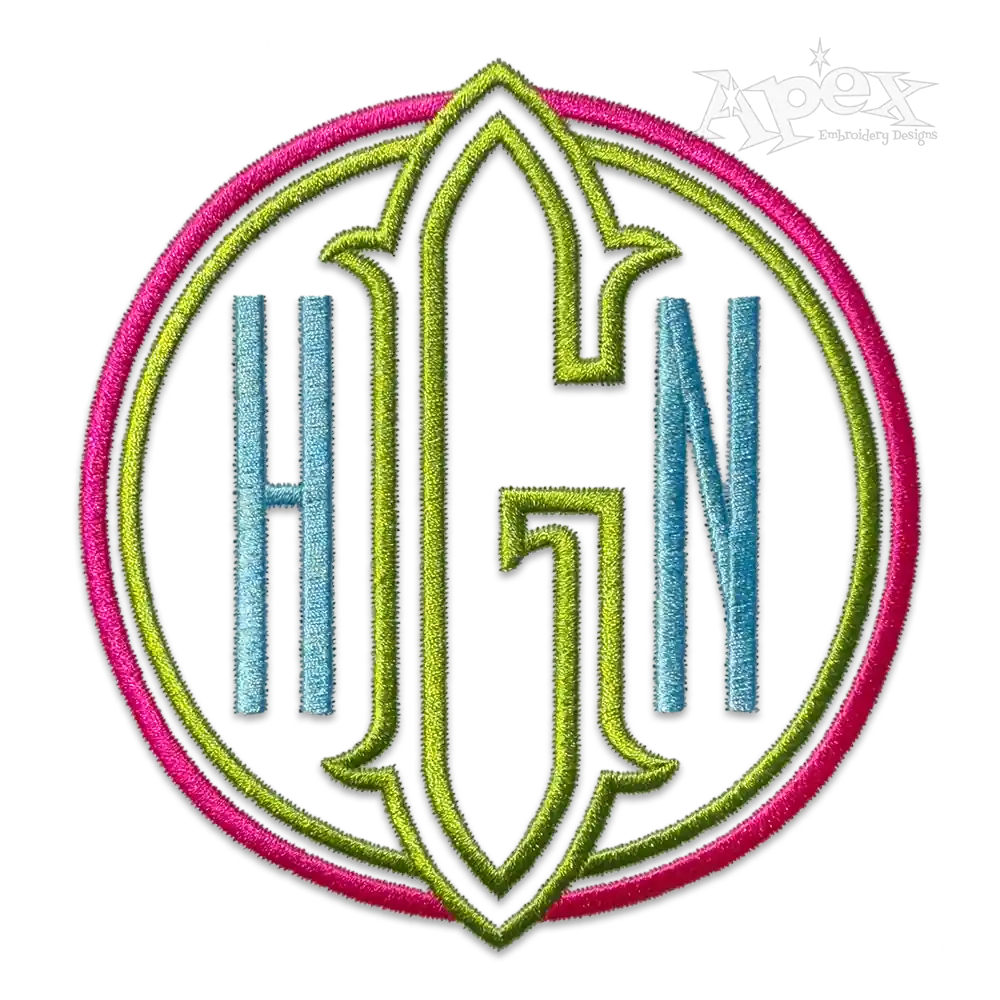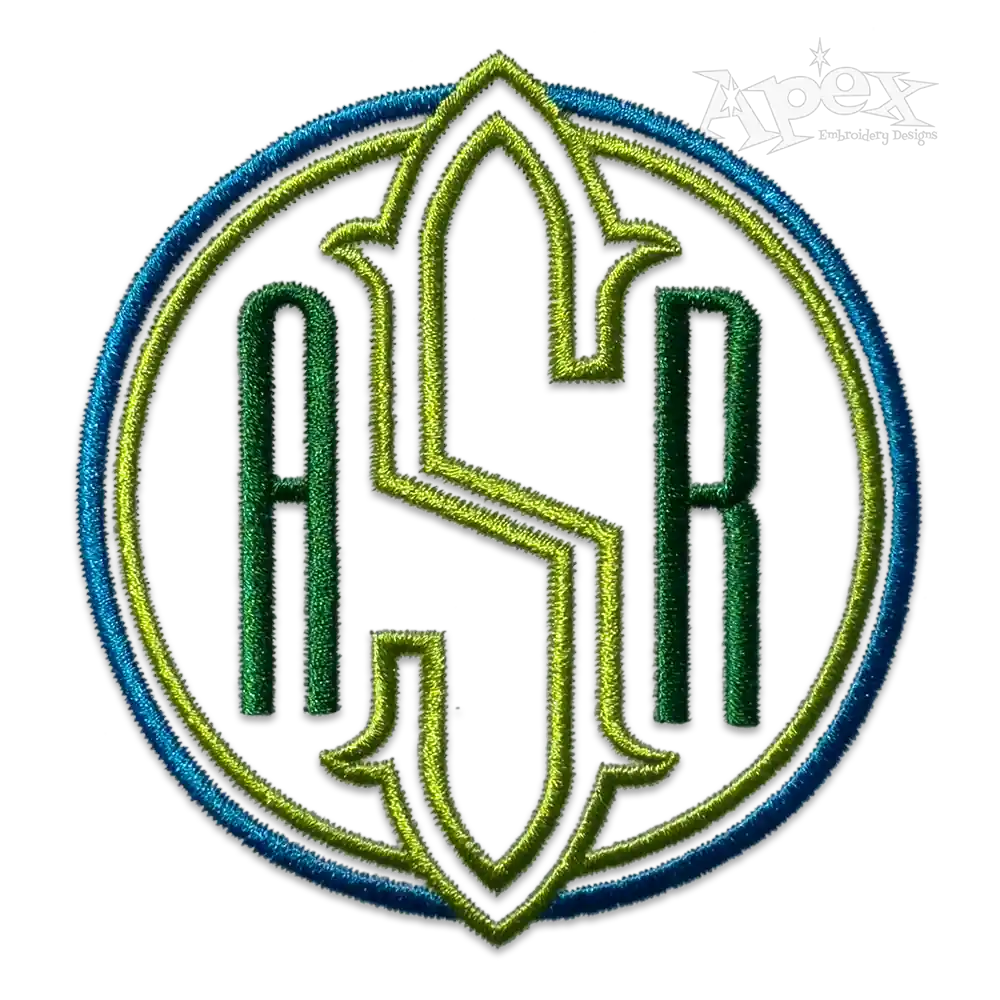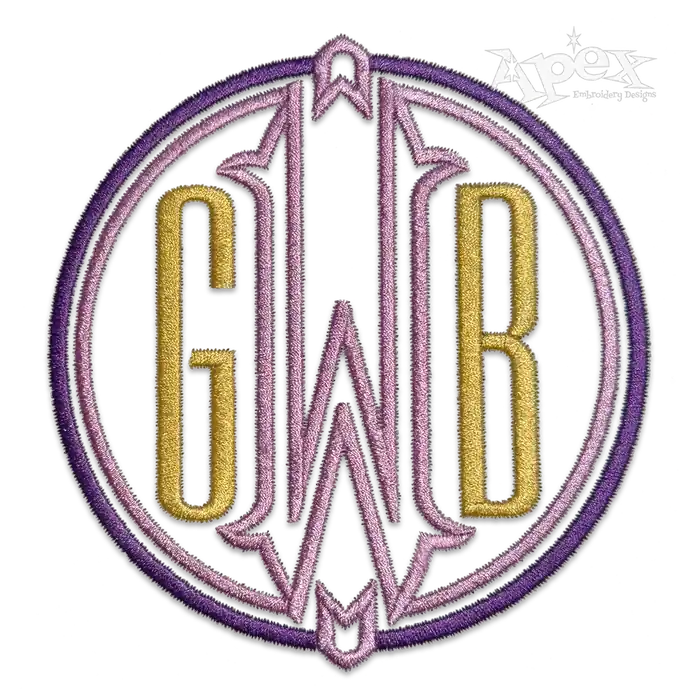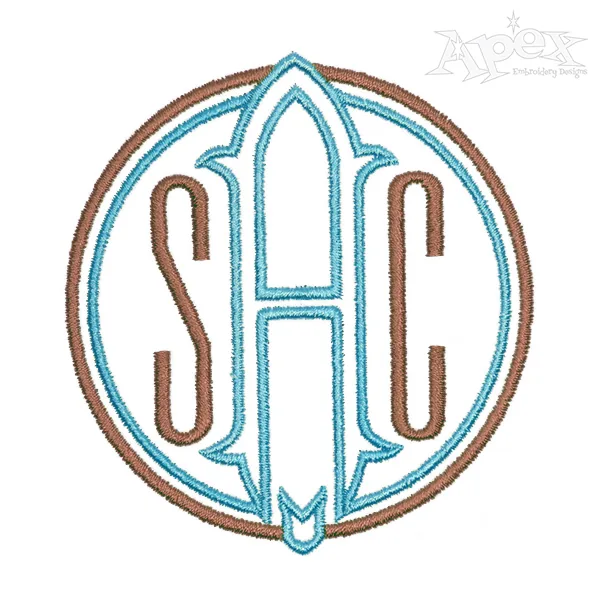
Round Modern Monogram Embroidery Font
There is an undeniable magnetism in pure geometric form, where clean lines converge to create an arresting, unified seal. The Round Modern Monogram font reimagines the traditional circular crest through the lens of sleek, minimalist luxury. Conceived for makers who appreciate bold presence and architectural symmetry, this alphabet transforms three-letter monograms into sculptural textile statements. Whether gracing structured heavy canvas or luminous table textiles, each letterform locks into place with balanced visual weight and contemporary sophistication.
Project Ideas for Round Modern Monogram
With its striking circular silhouette, this modern monogram brings fresh energy to classic personalized gifting and textile projects:
- Bespoke Resort Wear & Canvas Totes: Transform heavyweight cotton-duck beach bags, tailored boat totes, or weekend duffels into boutique-grade personalized accessories.
- Heirloom Bedding & Euro Shams: Create crisp, hotel-inspired elegance with monochromatic embroidery centered on high-thread-count duvet covers and square accent pillows.
- Personalized Gifting: Elevate wedding or housewarming gifts by stitching bold modern crests onto plush Turkish bath sheets, spa wraps, and waffle-weave robes.
- Luxury Table Linens: Anchor contemporary dining decor with graphic monograms set onto oversized hemstitch linen napkins and runners.
- Canvas Totes & Structured Bags: Center the monogram horizontally between the handle drop, roughly 2 to 3 inches below the top edge for balanced visual grounding.
- Bedding & Accent Cushions: Position dead-center on 20x20 or 24x24 square shams to let the circular symmetry serve as the primary focal point of the bed.
- Bath Sheets & Hand Towels: Align along the center fold, approximately 1.5 to 2 inches above the lower woven dobby border.
- Napkins: Angle diagonally within the corner point for a dynamic look, or position dead-center for a modern, tailored fold.
Round Modern Monogram Craft & Letterform Details
Digitizing a circular monogram requires far more than merely conforming letters into an ellipse. The human eye detects even the slightest distortion in a curved perimeter, making balanced tension control paramount. We specifically mapped the satin stitch flow to honor the natural pull of the thread, engineering specialized directional underlay beneath the sweeping outer arcs. This reinforces the letterform foundation, preventing needle tension from collapsing the round silhouette.
The interior characters are calibrated to interlock with microscopic precision, establishing crisp negative space where the side initials mirror the central surname letter. High-density edge caps and smooth radial turns provide a rich, tactile relief that catches the light like embossed leatherwork. Every travel path has been meticulously optimized for clean machine runs, minimizing unnecessary trims and producing an immaculate heirloom finish from first stitch to last.